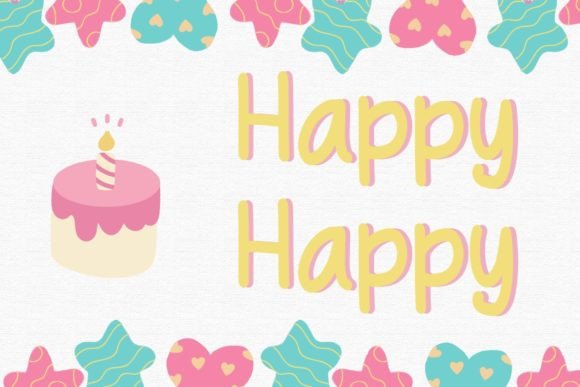
Happy Happy: A Display Font That Amplifies Joy in Marketing
If your audience scrolls past your content in under two seconds, every visual choice must earn its place — especially typography. Happy Happy isn’t just another decorative font; it’s a strategic design asset built for digital-first communication. As a display font, it thrives where attention is scarce and emotion matters most: Instagram reels covers, YouTube thumbnails, email headers, limited-space ad banners, and branded social posts. Its rounded, bouncy letterforms carry warmth without sacrificing clarity — a rare balance that makes Happy Happy instantly recognizable yet highly functional.
Visually, Happy Happy blends playful energy with intentional structure. It’s not a chaotic script or an over-the-top cartoon typeface — it’s a modern, hand-informed display font with consistent spacing, open counters, and generous x-height. That means even at small sizes (like 24px on mobile previews), “Sale ends Friday!” or “New Collection Live” remains legible. Its personality is optimistic but grounded — ideal for brands that want to signal approachability, creativity, or lighthearted confidence without undermining credibility.
In campaign execution, Happy Happy shines brightest when used purposefully: as a headline anchor, a callout accent, or a logo mark within a larger visual system. Think of it as the visual equivalent of a confident smile in a video intro — brief, memorable, and emotionally resonant. On Pinterest pins promoting self-care routines, it adds instant warmth to titles like “5-Minute Morning Reset.” In YouTube thumbnail text overlays, its bold weight and friendly curves stop thumbs mid-scroll — especially against high-contrast backgrounds. For limited-time offers (“Flash Sale: 48 Hours Only”), Happy Happy delivers urgency wrapped in positivity, helping promotions feel exciting rather than demanding.
Readability across devices is non-negotiable — and Happy Happy performs well where many display fonts falter. Its generous letter spacing and clean terminals prevent crowding on small screens. When used for short-form text (under 6 words), it maintains impact without sacrificing scannability. Avoid using it for body copy or long paragraphs — that’s not its role. Instead, deploy it where hierarchy matters: as the dominant voice above supporting text set in a clean sans serif like Inter or Montserrat. This pairing creates rhythm and contrast: Happy Happy delivers mood and memorability; the sans serif delivers clarity and trust.
For brand consistency, Happy Happy works exceptionally well as a signature element across touchpoints. Use it identically in your Instagram story highlight icons, your email newsletter banner, and your landing page hero headline. That repetition builds recognition faster than color or iconography alone. Small businesses launching a new product line can use Happy Happy for teaser graphics (“Something joyful is coming…”), then carry it into launch-day assets and post-launch social recaps — reinforcing continuity without monotony. It also pairs elegantly with a refined serif (like Playfair Display) for editorial-style campaign pages or blog headers, adding sophistication while retaining warmth.
Real-world applications show its versatility: A fitness coach uses Happy Happy for Reels cover text (“You’ve Got This!”) over vibrant motion backgrounds — the font’s bounce mirrors energetic movement. An online shop promoting handmade ceramics applies it to seasonal promo banners (“Spring Blooms & Bowls”) — evoking craft, care, and cheer. A nonprofit running a mental wellness webinar series sets the title in Happy Happy, then layers supportive body text in a neutral sans serif — balancing emotional resonance with accessibility. Even in minimalist contexts, like a single-word Instagram post (“Breathe.”), Happy Happy carries meaning through shape and spacing alone.
Because Happy Happy is a display font — not a workhorse text face — its power lies in restraint. Reserve it for moments that need emotional punctuation: headlines, quotes, CTAs, event names, or brand slogans. Overuse dilutes impact; precision multiplies it. When designing for fast-scrolling feeds, test how it renders at thumbnail size (e.g., 120x120px). If the word “Joy” remains distinct and inviting, you’re on track. If letters blur or collapse, reduce character count or increase padding around the text block.
Font pairing is where Happy Happy reveals its strategic value. Pair it with a geometric sans serif (like Poppins or Lato) for digital ads and app banners — clean, contemporary, and conversion-focused. Combine it with a warm, low-contrast serif (like Cormorant Garamond) for premium email headers or digital magazine features — lending authority without coldness. Avoid pairing it with other highly decorative fonts; contrast drives harmony here. And always verify licensing: Happy Happy is a commercial font, so ensure your license covers usage in client campaigns, digital templates, merchandise, or paid ads before deployment.
Ultimately, Happy Happy supports marketing goals by turning words into emotional signals. It doesn’t just say “celebrate” — it makes celebration feel possible, immediate, and inclusive. In a landscape saturated with generic stock visuals and algorithm-driven sameness, choosing a font like Happy Happy is a quiet act of brand differentiation. It tells your audience, without saying a word, that your message comes with intention, warmth, and human-centered design. That’s not decoration — that’s communication with purpose.